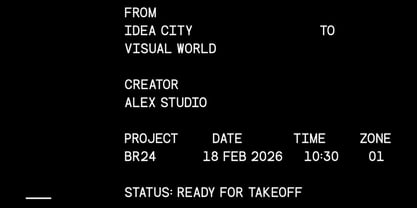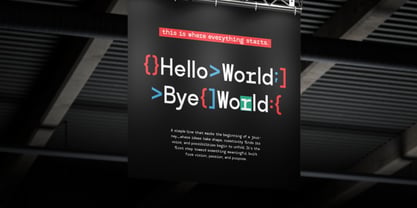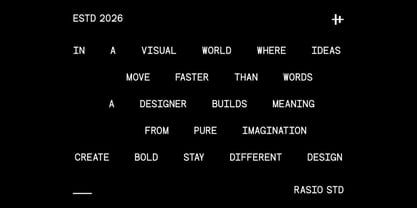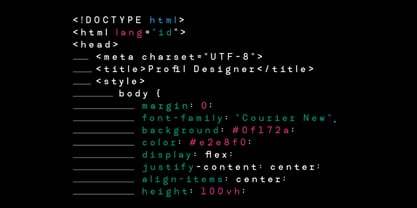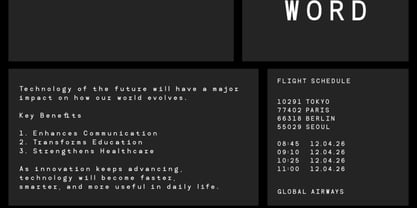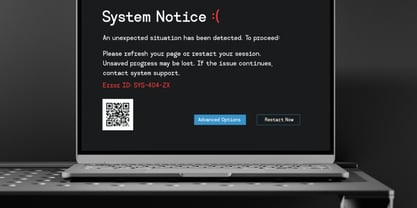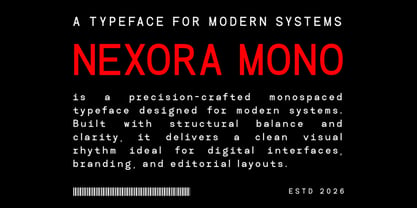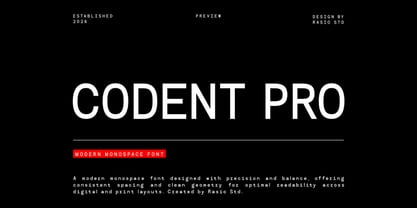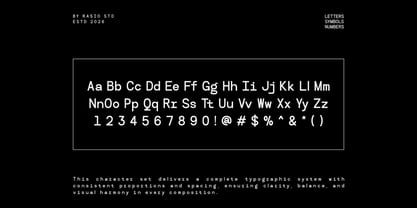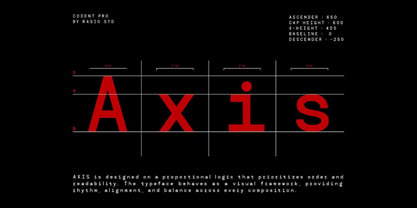
Codent Pro
by Rasio Studio
The Codent Pro Font Family was designed by Fajar Indra and published by Rasio Studio. Codent Pro contains 1 styles. More about this family
Codent Pro is a precision-crafted modern monospaced typeface designed for contemporary digital systems and structured layouts. Built with clean geometry and consistent character width, it delivers optimal readability and visual balance across user interfaces, coding environments, editorial compositions, and branding applications. Codent Pro is ideal for coding interfaces, developer portfolios, SaaS branding, tech startups, UI/UX design systems, dashboards, editorial layouts, data visualization projects, product presentations, and modern corporate identities that require precision and clarity.
Designers: Fajar Indra
Foundry: Rasio Studio